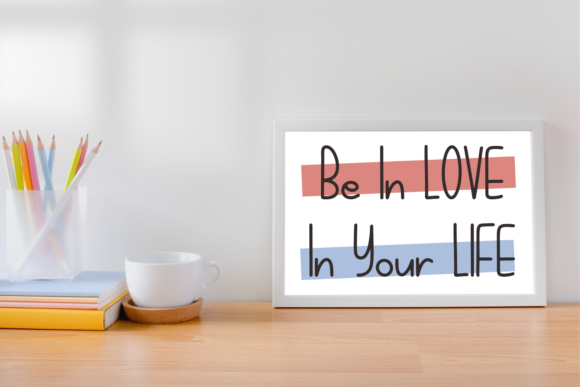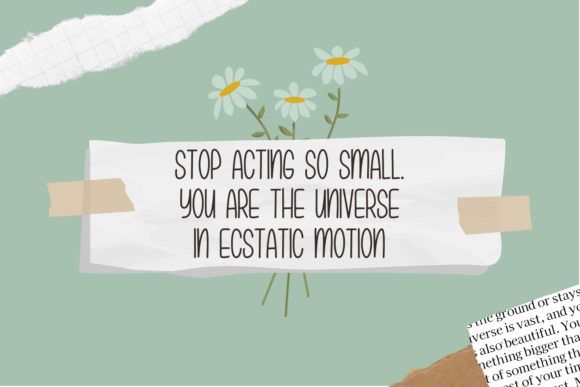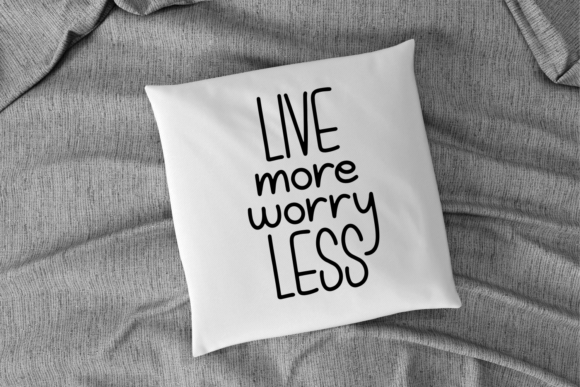
Introduction to Hello Thirty Font
Hello Thirty is a slim, cute and adaptable handwritten font.
It is perfect for product packaging, branding project, magazine covers, social media, wedding, or just used to express words above the background .